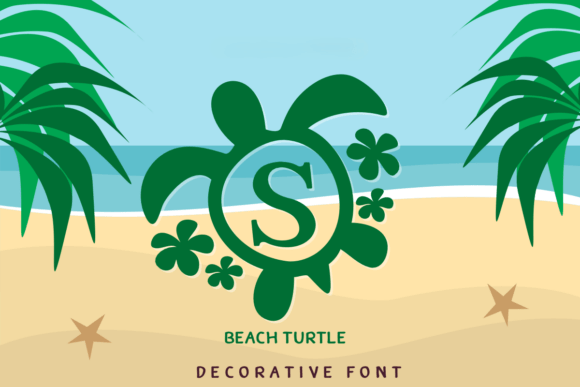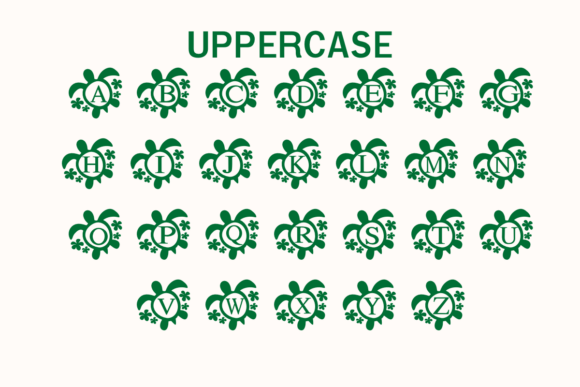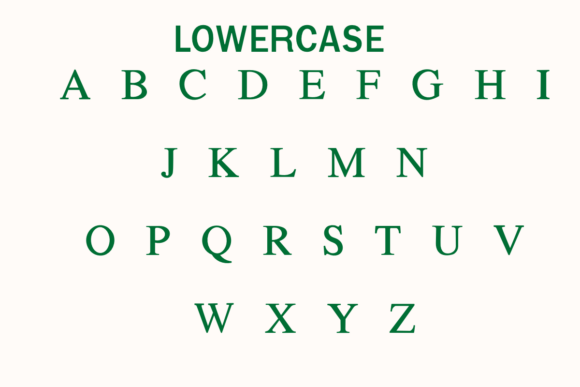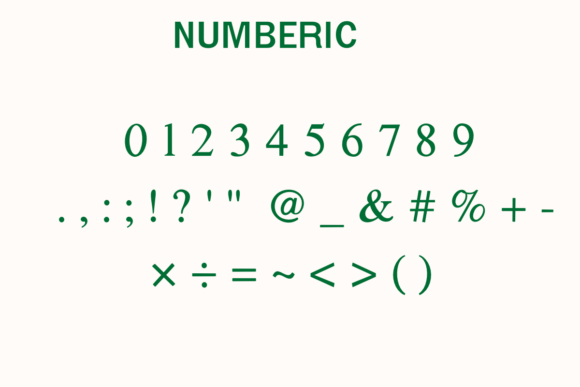
Beach Turtle Font
About the Beach Turtle Font
Crafted with precision, the Beach Turtle Font is ready to bring your ideas to life. Beach Turtle is a tropical decorative font where each monogram-style letter is enclosed within a stylized sea turtle design. Perfect for beachwear branding, travel souvenirs, island-themed designs, and marine conservation graphics.